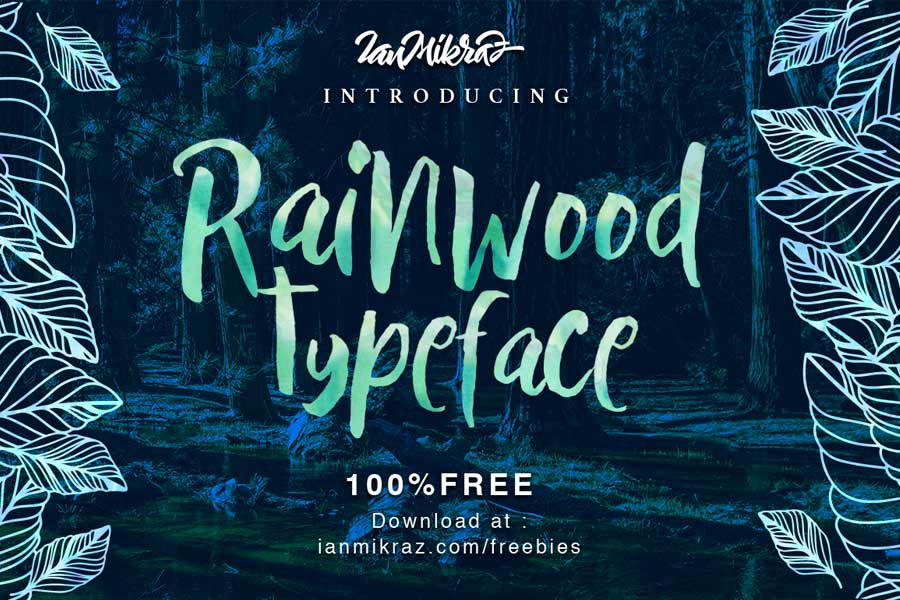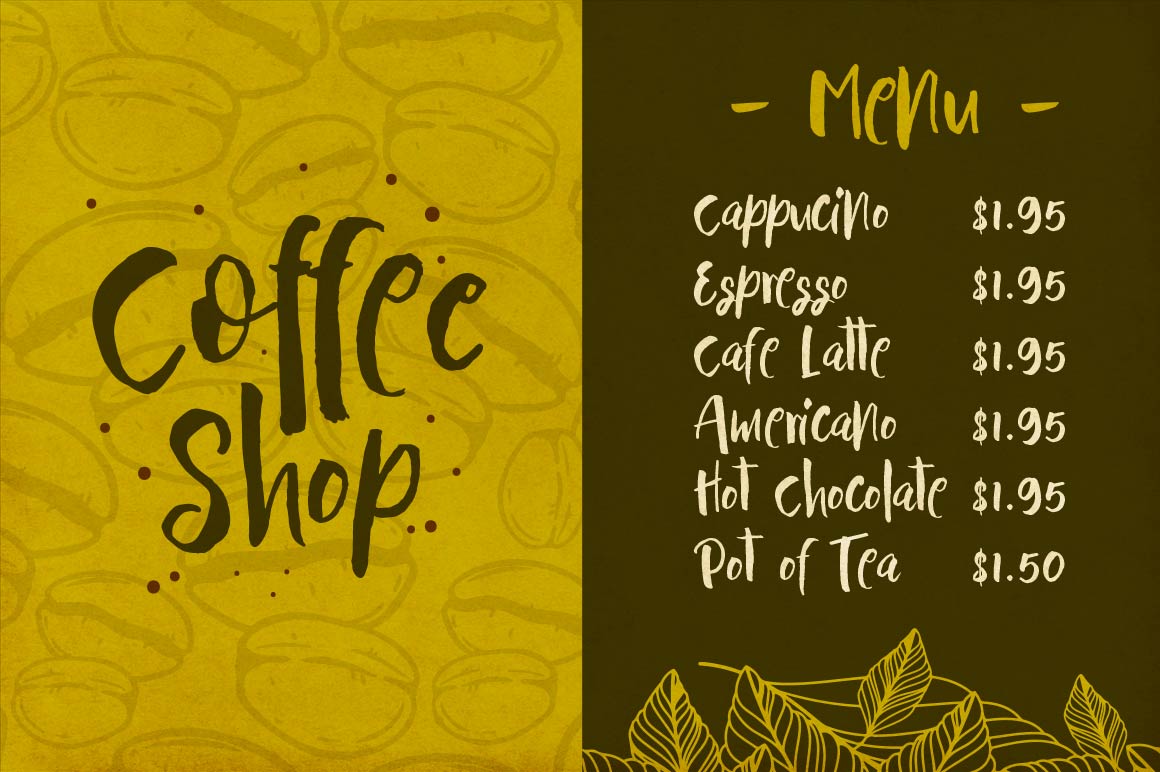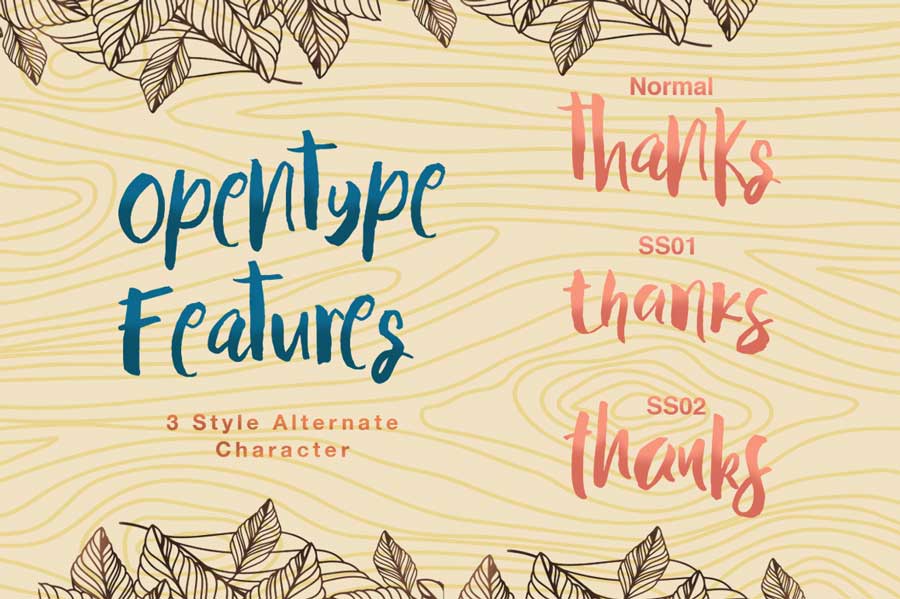
Rainwood Free Typeface is a handmade paint brush style font that combines handwriting with brush and paint touch. Created by founder of Ianmikraz Studio, this font contains 232 glyphs plus 52 alternate OpenType alternate characters, which is usable with design softwares like Adobe Suites and CorelDraw.
This font is suitable for ranges of design applications like logo, greeting cards, restaurants menu and more. A great font to bring out classy, personal touch.